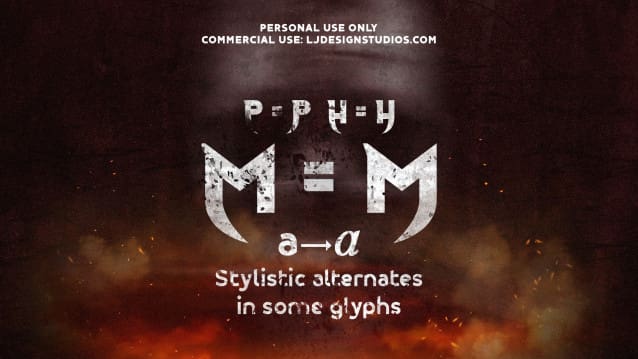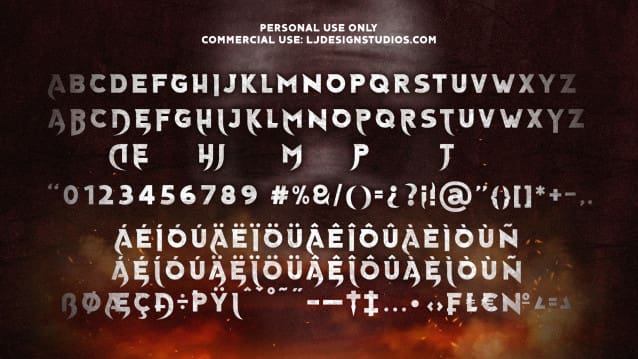
Izquerda 2024 Font
Izquerda 2024 Font, a perfect style for designing logos for heavy metal bands, metalcore and others. It offers an aggressive aesthetic for the proposals already mentioned.